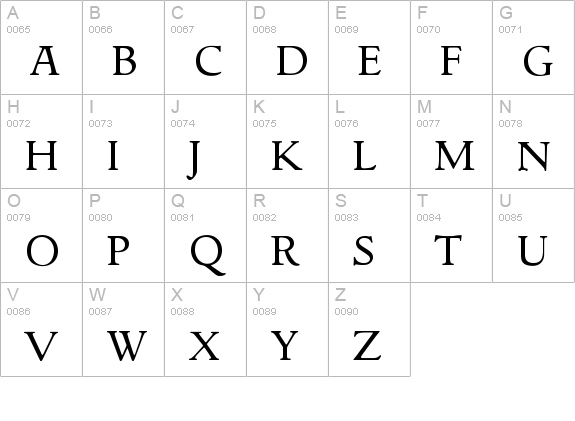
Goudita-Regular is the standard, neutral variant in the Goudita typeface family \xE2\x80\x94 well suited to general body text, paragraphs, and standard typographic work.
Goudita-Regular is a sleek and modern font that exudes elegance and sophistication. With its clean lines and balanced proportions, this typeface is perfect for adding a touch of class to any design project. Whether you're creating a professional presentation or designing a stylish logo, Goudita-Regular is sure to make a lasting impression. What's even better is that Goudita-Regular is completely free to download at FontsMarket.com. You can easily access this stunning font and elevate your creative work without any cost. Don't miss out on the opportunity to enhance your designs with the timeless beauty of Goudita-Regular. Download it today and let your creativity shine!